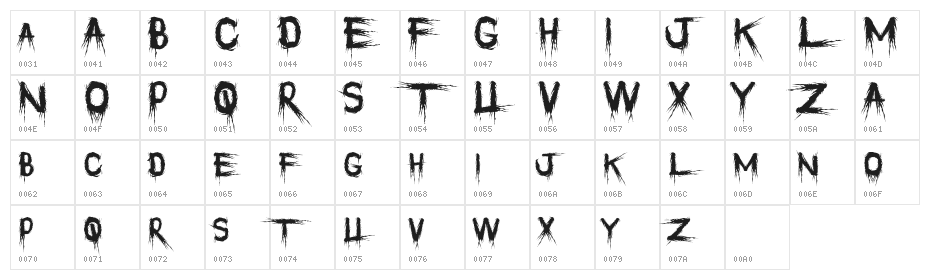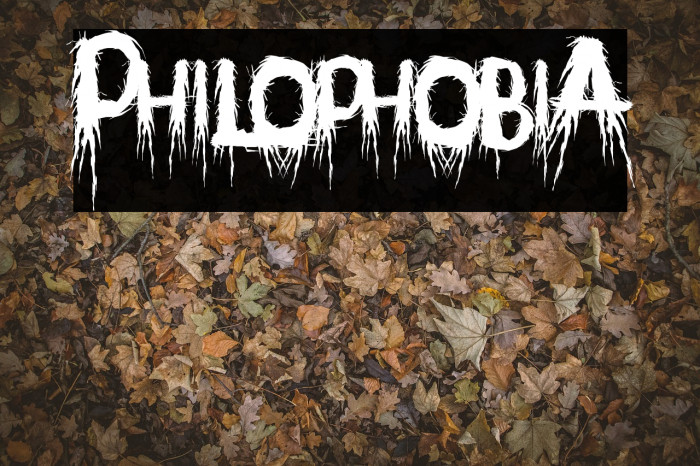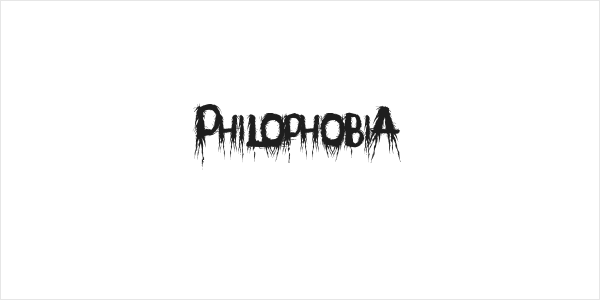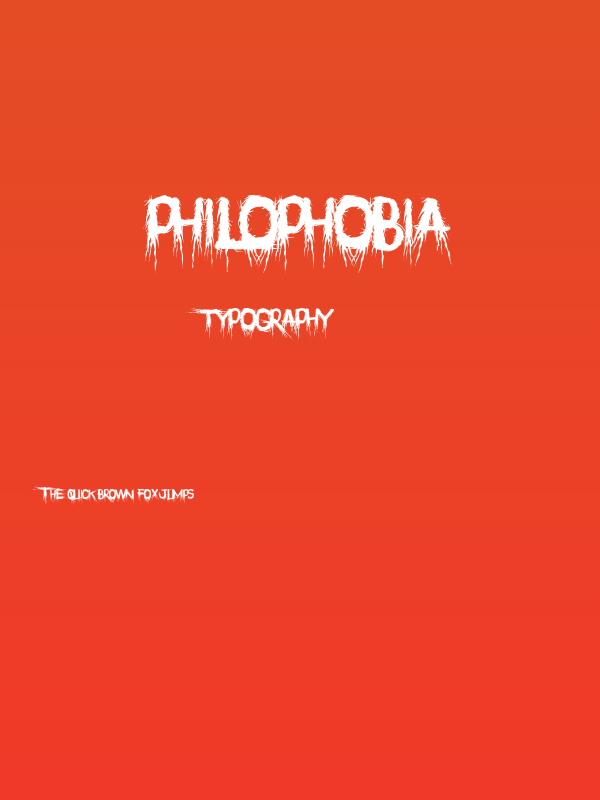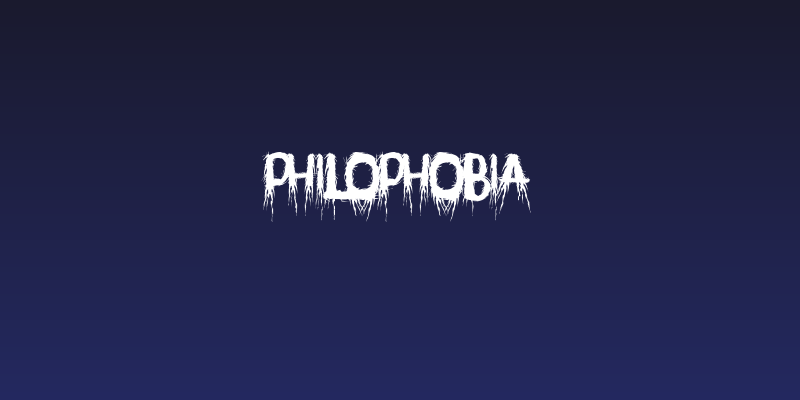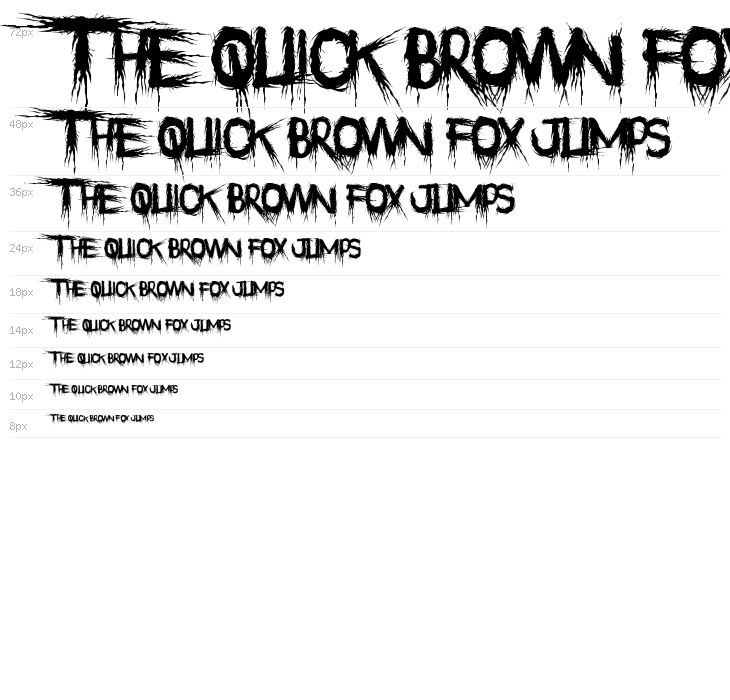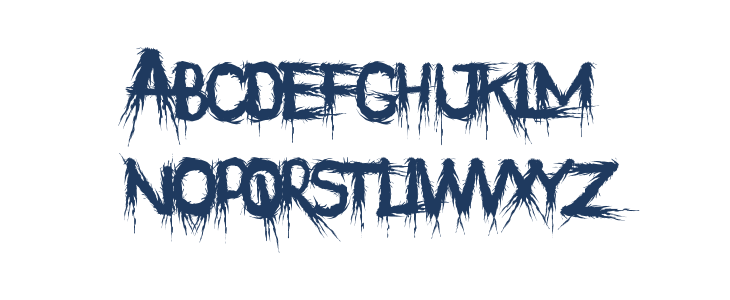
Philophobia Font
Philophobia Description
This font features a highly decorative and distressed style, characterized by jagged, uneven edges that give it a raw, grungy appearance. The letters appear as if they are dripping or melting, creating a sense of movement and chaos. This unique design is bold and eye-catching, making it suitable for projects that require a dramatic and edgy look. The uppercase and lowercase letters maintain a consistent style, with each character exhibiting the same rugged texture. The font's overall aesthetic is reminiscent of horror or thriller themes, making it ideal for use in posters, album covers, or any design that aims to evoke a sense of unease or intensity.
Proposed ProjectsIdeal for horror movie posters, album covers, Halloween event flyers, or any project needing a dramatic, edgy aesthetic.